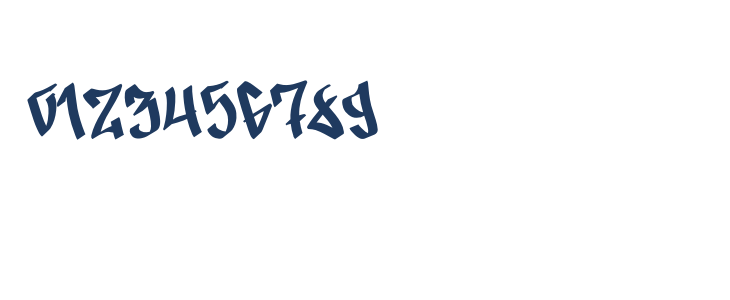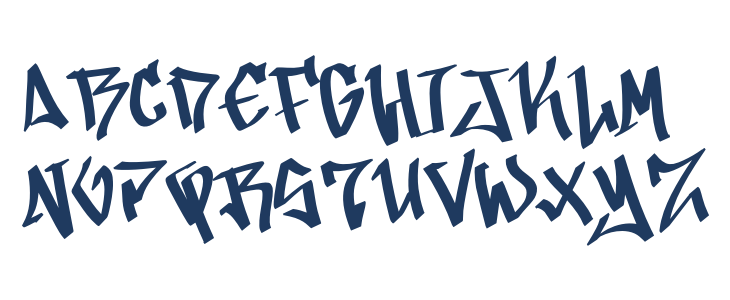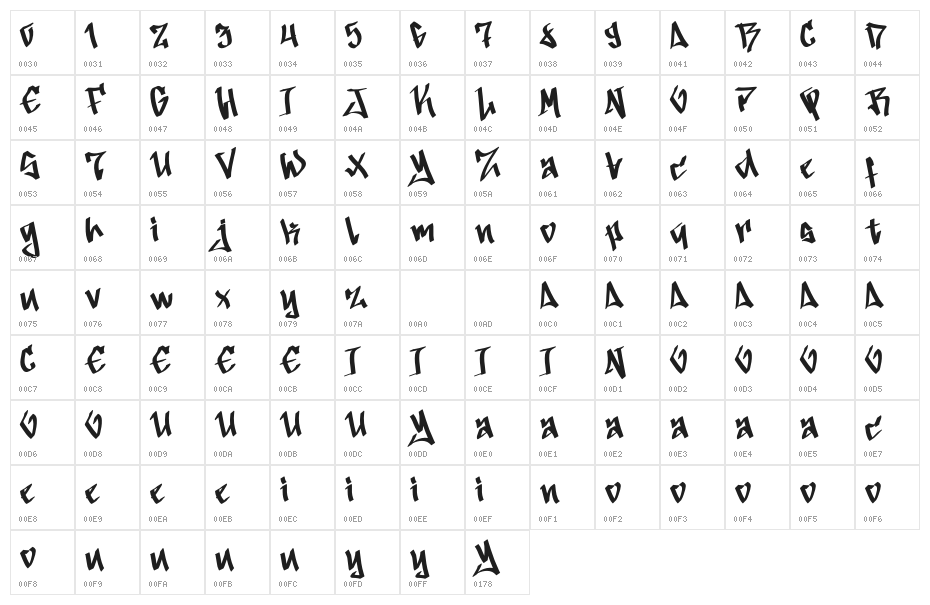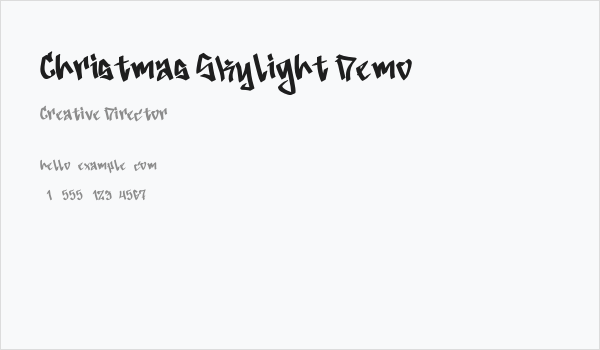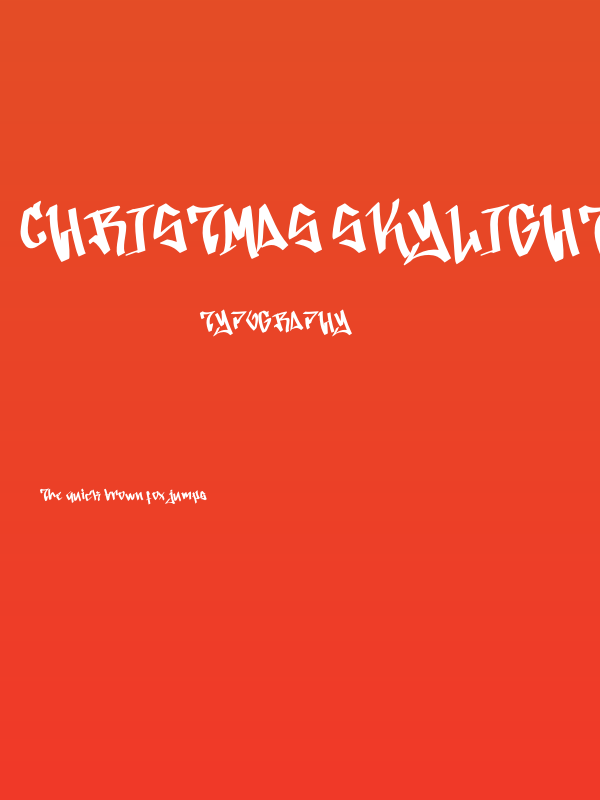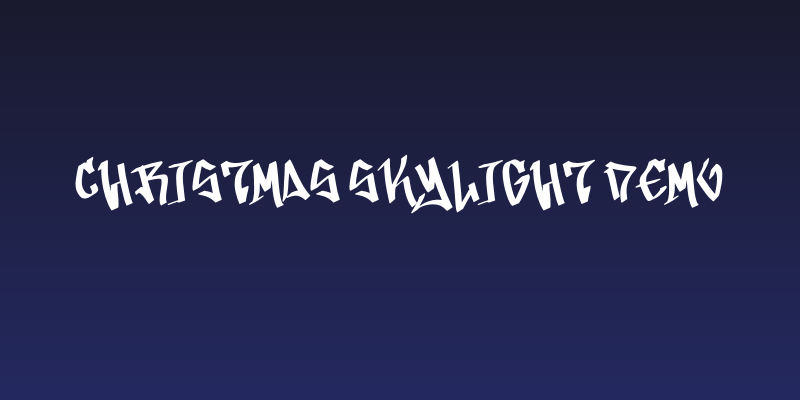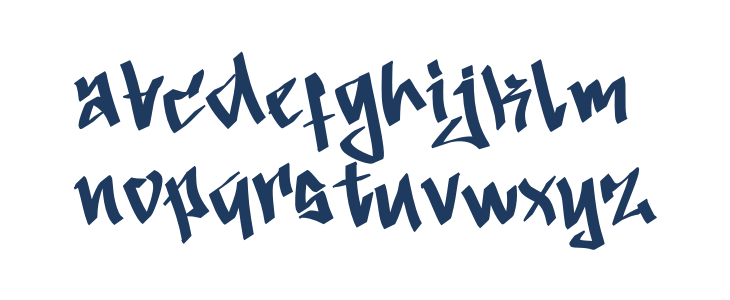
Christmas Skylight Demo Font
Christmas Skylight Demo Description
A bold, angular display font with sharp, irregular strokes and a hand-drawn, calligraphic style. The characters feature dramatic slants and pointed terminals, giving a dynamic and energetic appearance.
| Overall Style | Decorative, Festive, Hand-drawn |
| Use Case | Headlines, Posters, Logos, Invitations |
| Proposed Projects | Holiday cards, event posters, festive branding, themed invitations, decorative headlines. |